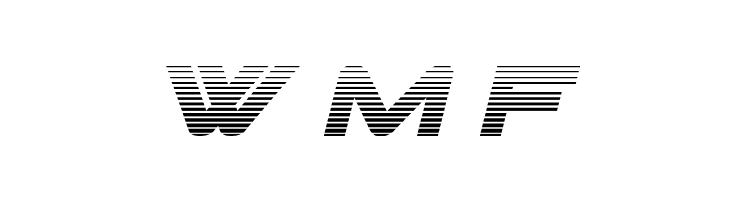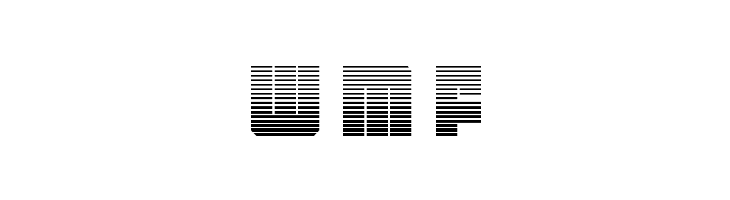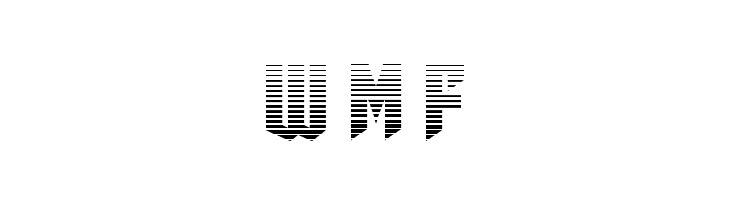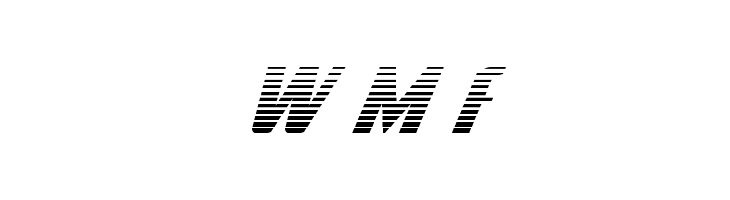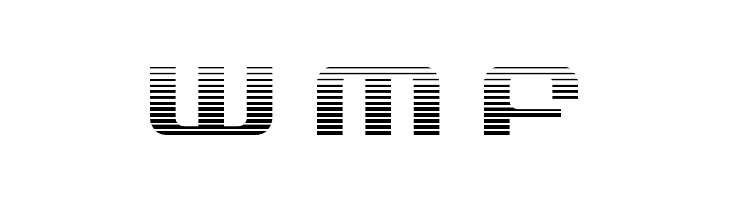
A futuristic font with a dynamic gradient line pattern and geometric structure.
A futuristic, italicized font with gradient-striped characters.
A bold, dynamic font with a gradient effect and high contrast, perfect for impactful designs.
A futuristic, slanted font with a gradient line effect, exuding speed and modernity.
A dynamic, italicized font with gradient stripes and a futuristic look.
A futuristic font with gradient-like horizontal lines creating a dynamic and modern look.
Bold, italicized font with a gradient effect created by horizontal lines.
A bold, geometric font with a striped gradient effect.
A futuristic, italicized font with gradient-striped characters and a dynamic, digital aesthetic.
A bold, futuristic font with a horizontal line pattern creating a gradient effect.
A bold, italic font with a gradient effect from horizontal stripes, offering a dynamic and futuristic style.
A bold, modern font with a gradient line effect across each character.
A bold, italic font with a dynamic gradient effect, ideal for modern and tech-themed designs.
A futuristic, bold font with a gradient effect created by horizontal lines.
A futuristic italic font with gradient lines and a dynamic, high-tech style.
A futuristic italic font with a dynamic, linear gradient design.
A modern, striped font with a gradient effect and geometric shapes.
A bold, futuristic font with a striped gradient effect.
A bold, italicized font with a futuristic gradient line design.
A bold, futuristic font with a gradient effect and geometric structure.
A bold, italicized font with a gradient effect and high contrast, ideal for dynamic designs.
A bold, modern font with a gradient effect created by horizontal lines.
A bold, italicized font with a gradient effect and dynamic, modern style.
A dynamic, gradient italic font with a futuristic and speedy appearance.
A bold, decorative font with a gradient effect and striped pattern for a modern look.
A bold, italicized font with a dynamic gradient effect and sharp, angular characters.
A bold, gradient-effect font with horizontal lines creating a modern, dynamic look.
A modern, italic font with a gradient line effect, conveying speed and dynamism.
A bold, geometric font with a unique gradient effect created by horizontal lines.
A futuristic, striped font with a digital, gradient-like appearance.
A modern, italic font with a gradient effect and striped pattern.
A bold, futuristic font with a horizontal line gradient effect.
A futuristic, dynamic font with a horizontal gradient effect and italicized style.
A bold, modern font with a gradient effect and geometric design.
A bold, italicized font with a gradient effect and dynamic, modern style.